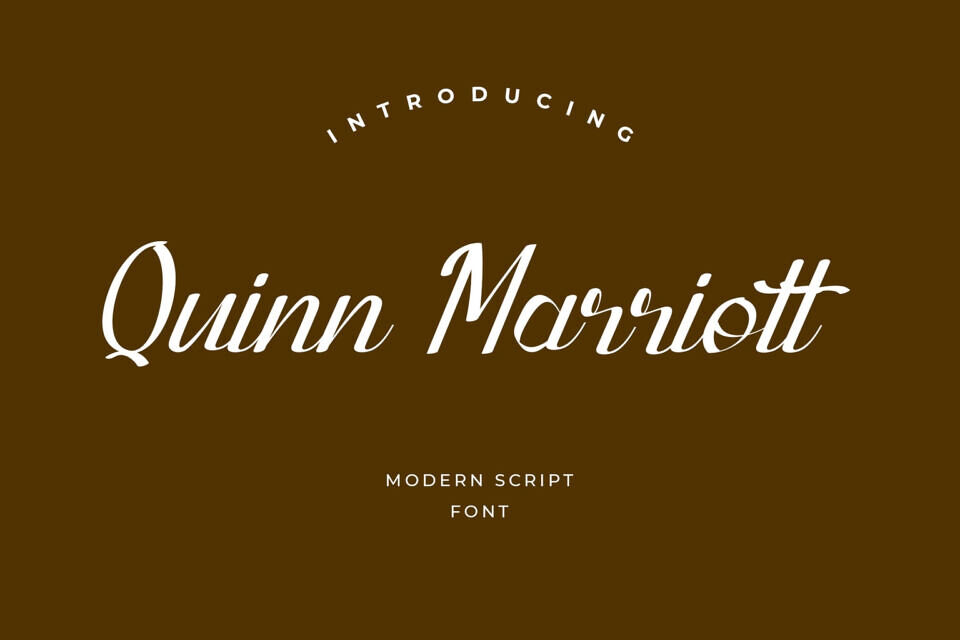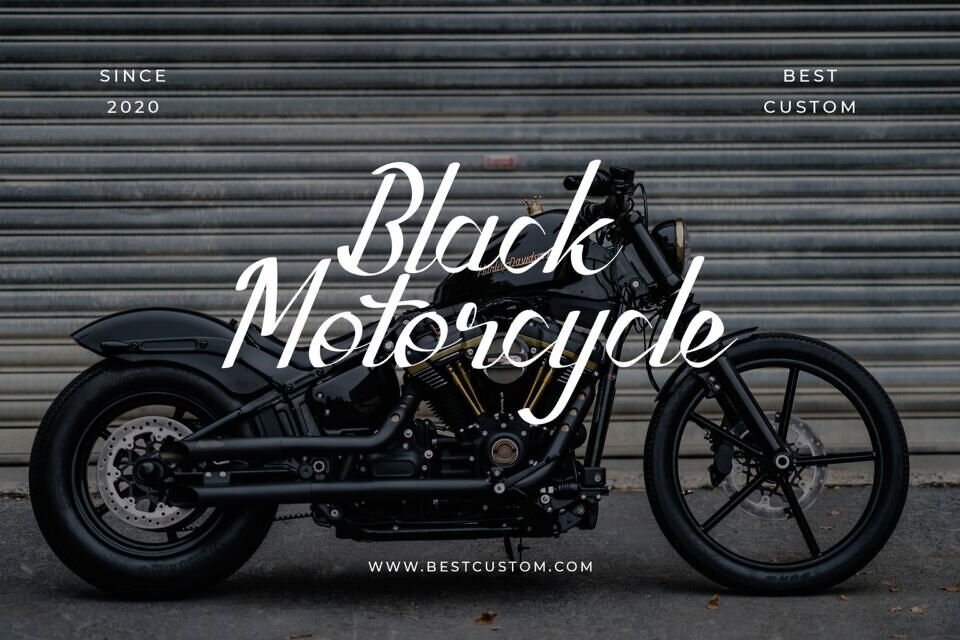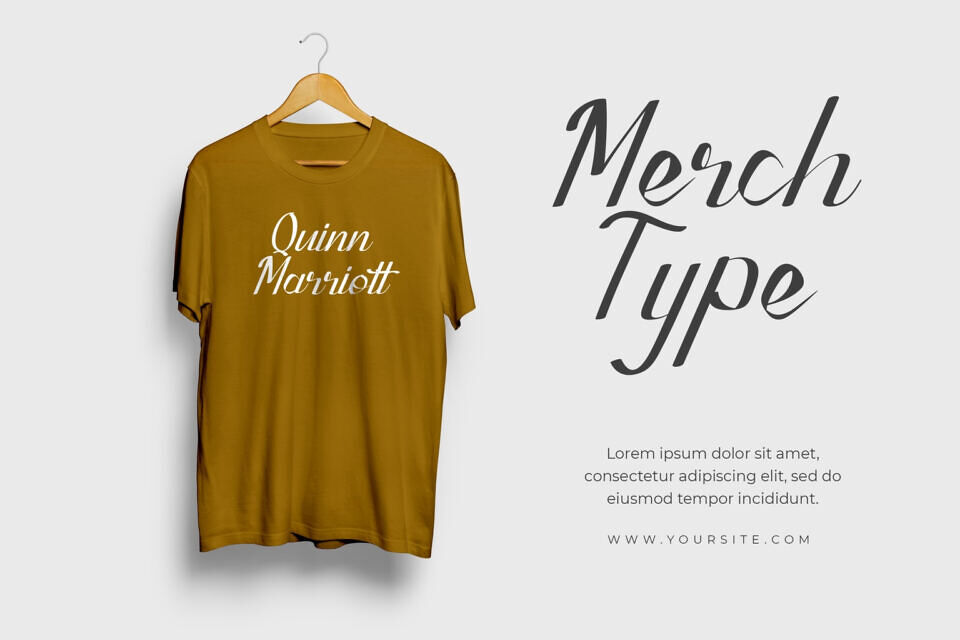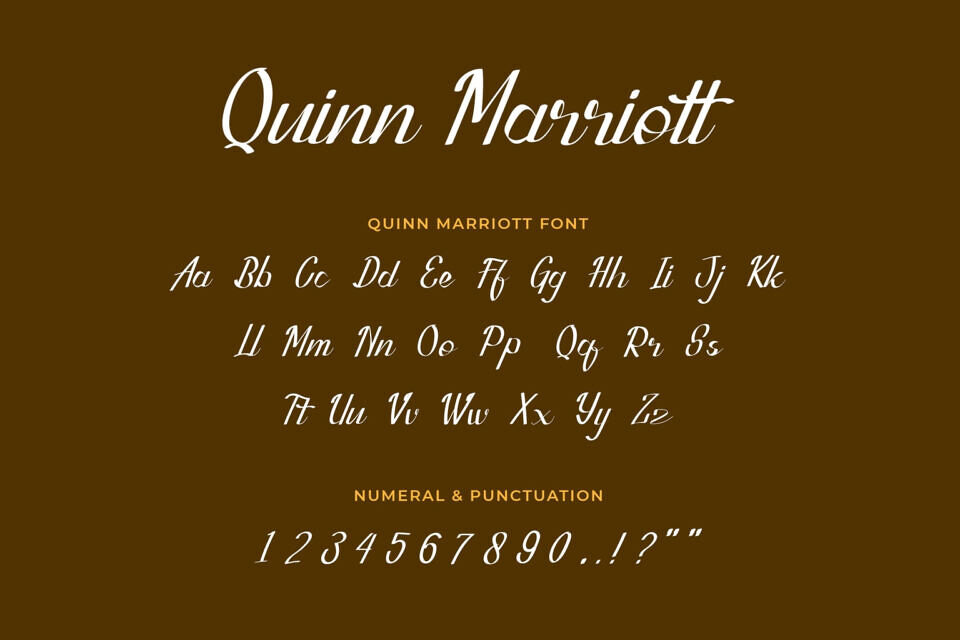
Quinn Marriott is an elegant, handwritten font with balanced characters, making it versatile for various designs. Its modern yet classic calligraphy style brings ideas to life. Perfect for adding a unique touch, it’s ideal for branding, invitations, quotes, and more, including logos, merchandise, and social media posts, making it a great alternative to regular fonts.